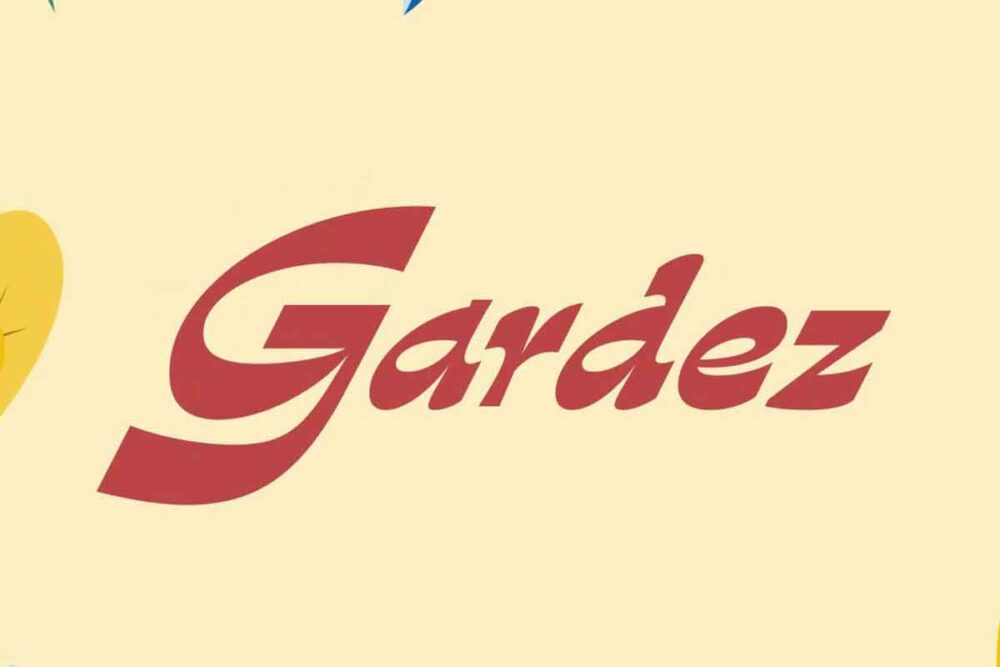
Gardez Font
Gardez is an eye-catching display typeface, designed for use at large sizes and in short passages of text. Its highly-expressive features make it an ideal choice for packaging, logotypes, posters, magazine titling, and book covers.
Gardez was born from the merging of the typical forms and features of traditional garalde italics with those of an inverted contrast design – two styles that are traditionally very far apart. In contemporary design, visual taboos are falling and there is an insatiable appetite for unorthodox and challenging designs; we saw an opportunity to be brave and irreverent by combining two extremes into something very new and very different.
Dalton Maag Designer Rafael Saraiva developed a unique and perfectly-executed display typeface that captures the reader’s attention and remains with them. Gardez takes liberties that only digital display typefaces can: extremely large capitals, unapologetic swashes, and fluid, expressive strokes that purposefully defy the laws of legibility.